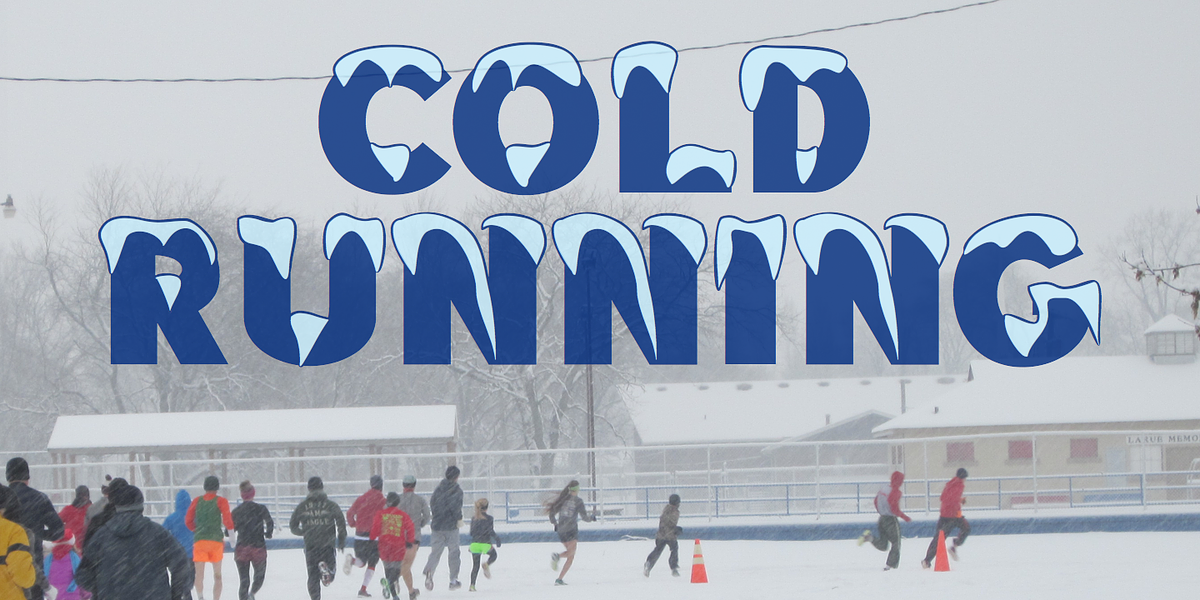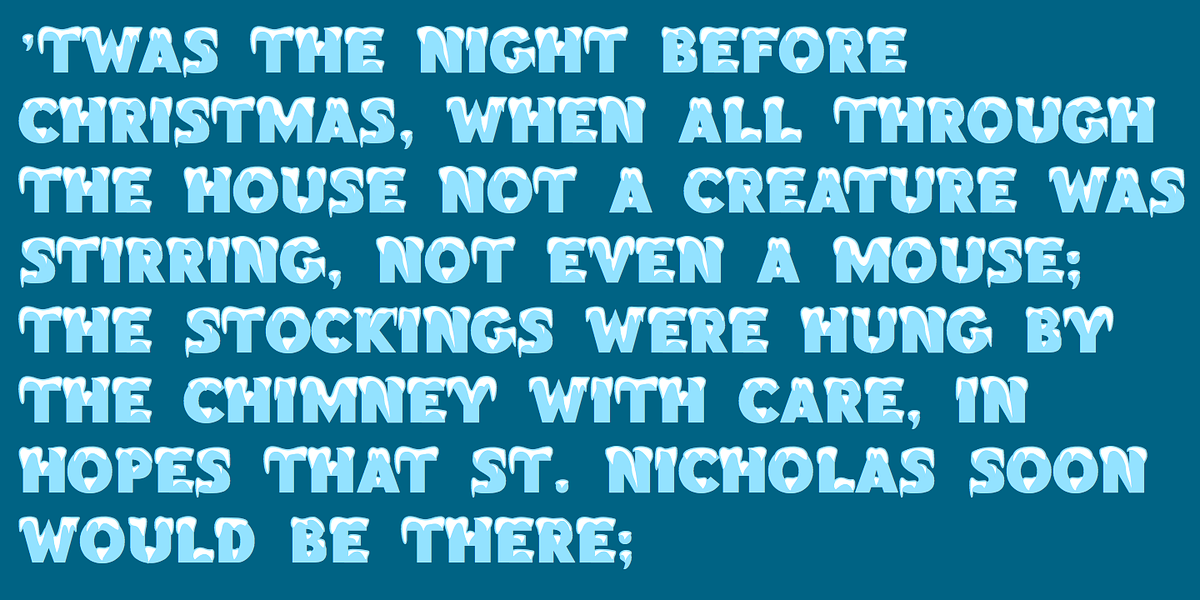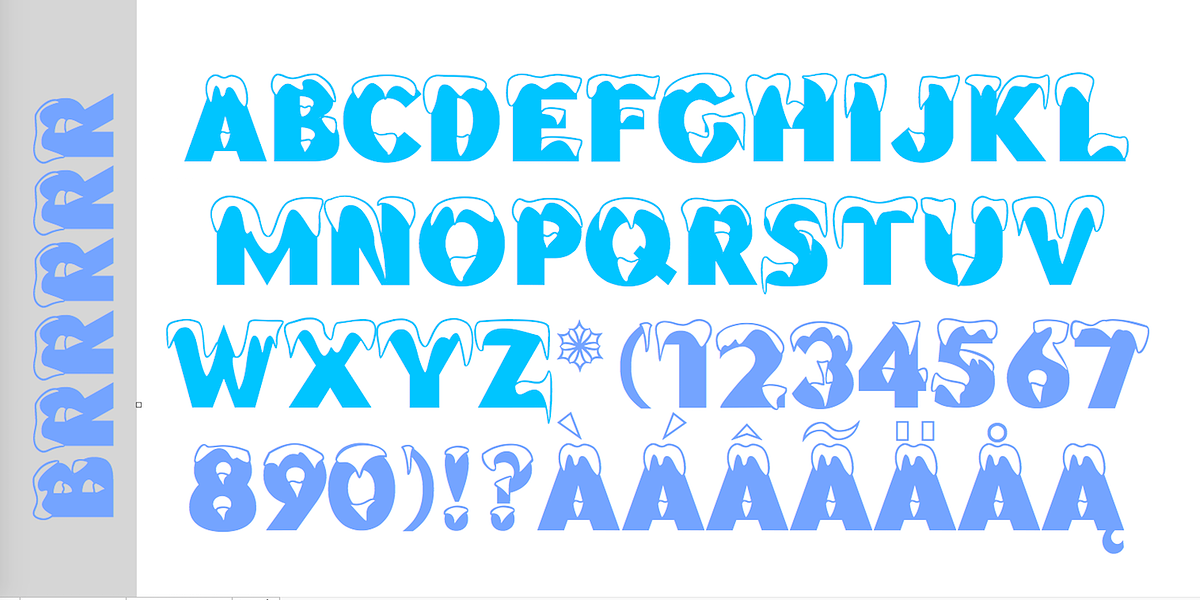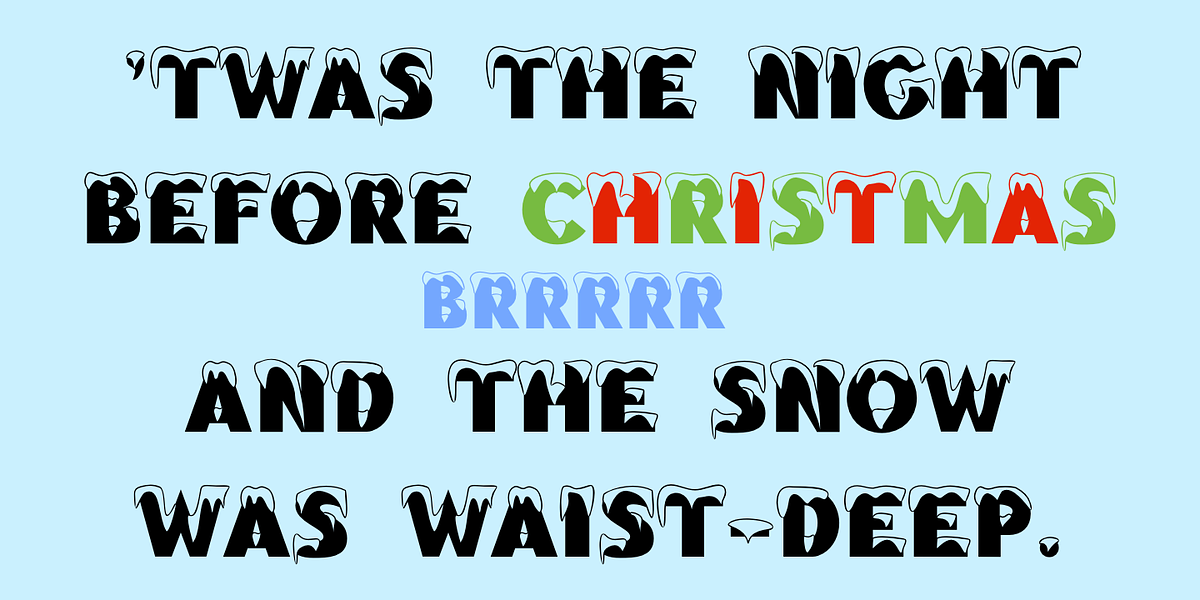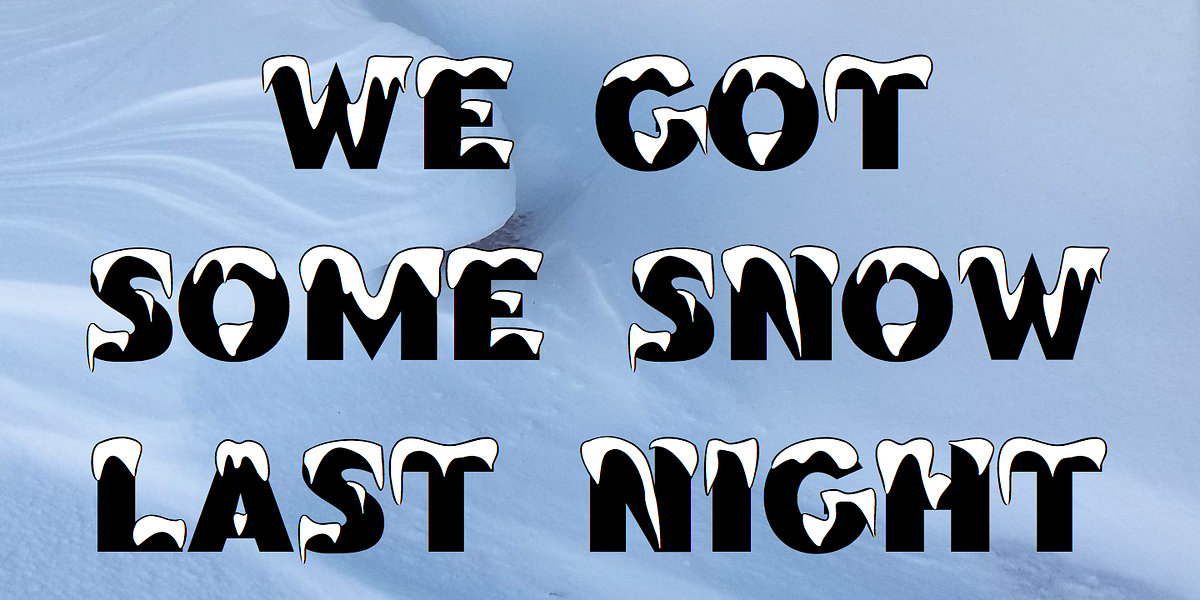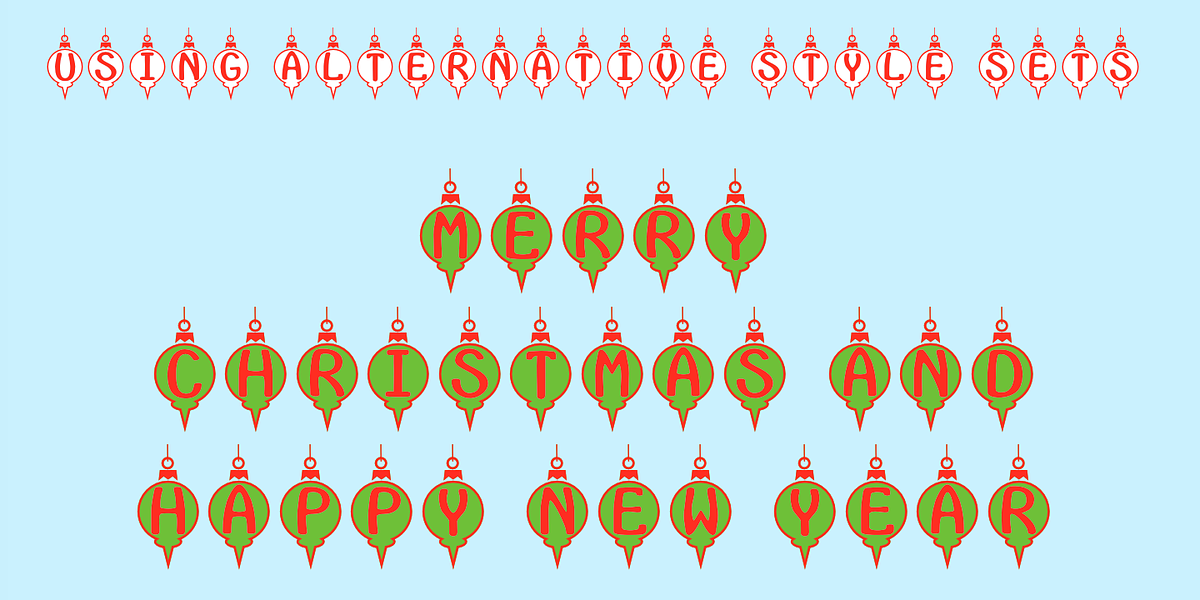
Brrrrr
Brrrrr is a playful display font designed to evoke the feeling of snow-covered letters. The font includes an optional 'icing' layer that can be applied in a different color for added visual interest. Additionally, hidden within the font are ornament characters accessible through OpenType Stylistic Sets, further enhancing its festive appeal.